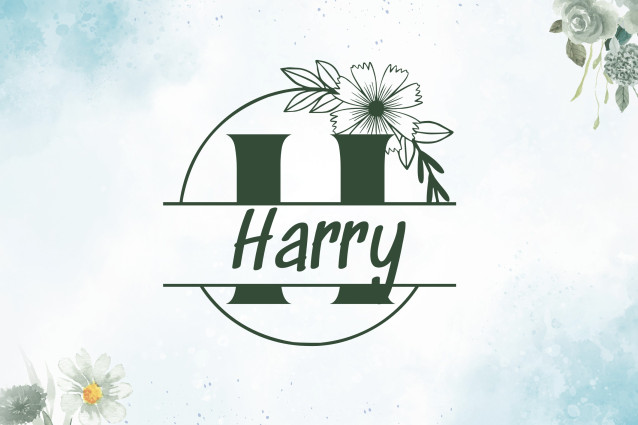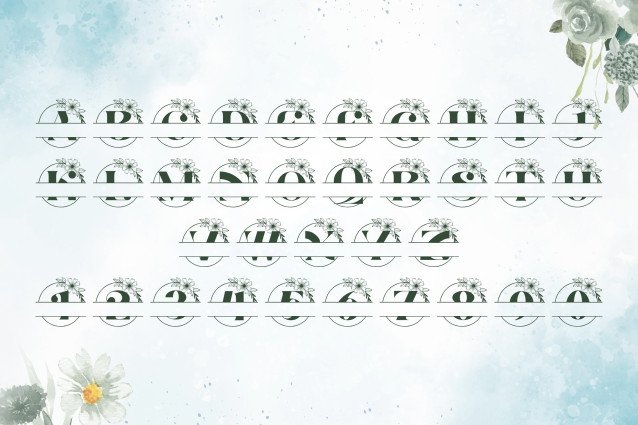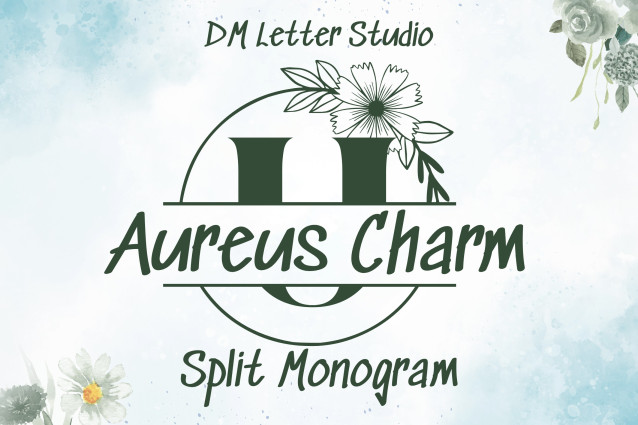
Aureus Charm Split Monogram Font
Aureus Charm Split Monogram is a refined and regal serif font featuring elegant split-letter designs perfect for personalized monograms. With its classic uppercase structure and graceful dividing lines, this typeface is ideal for custom nameplates, wedding decor, branding, and upscale gifts. It balances timeless sophistication with modern personalization, creating memorable typographic moments.